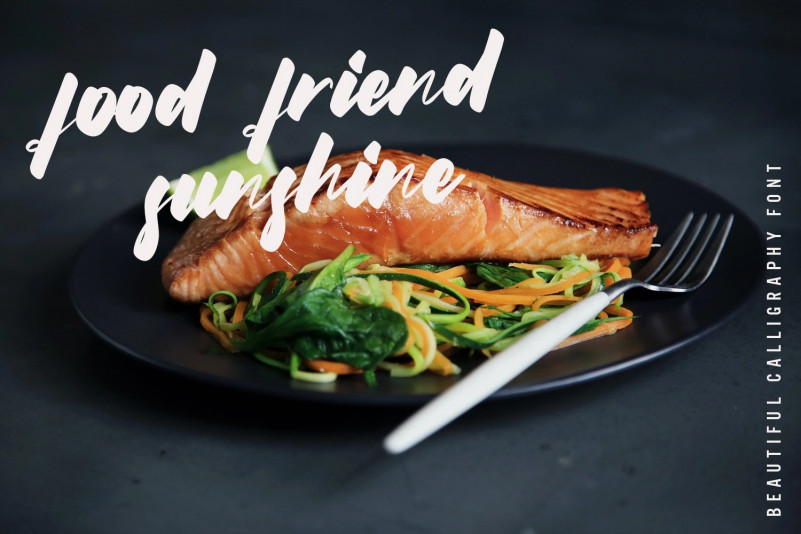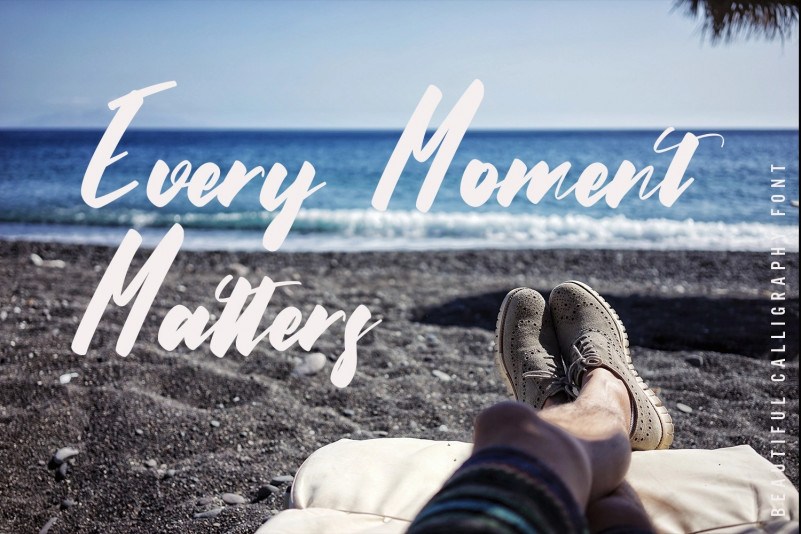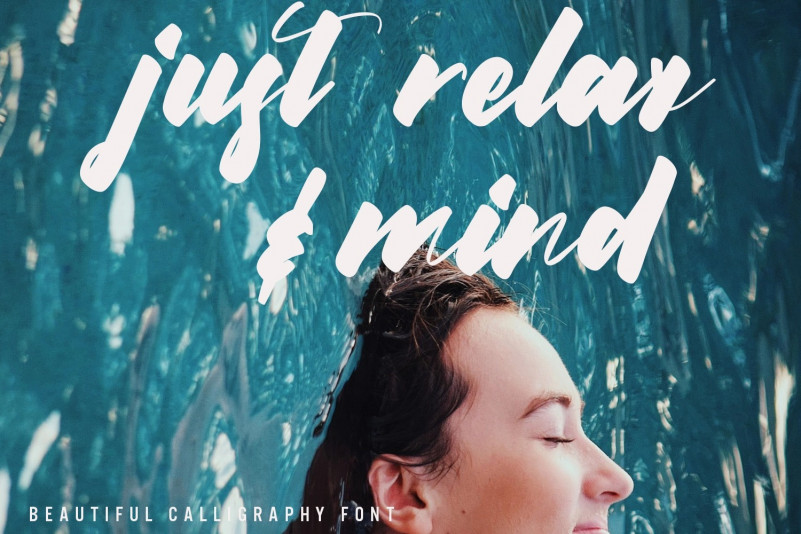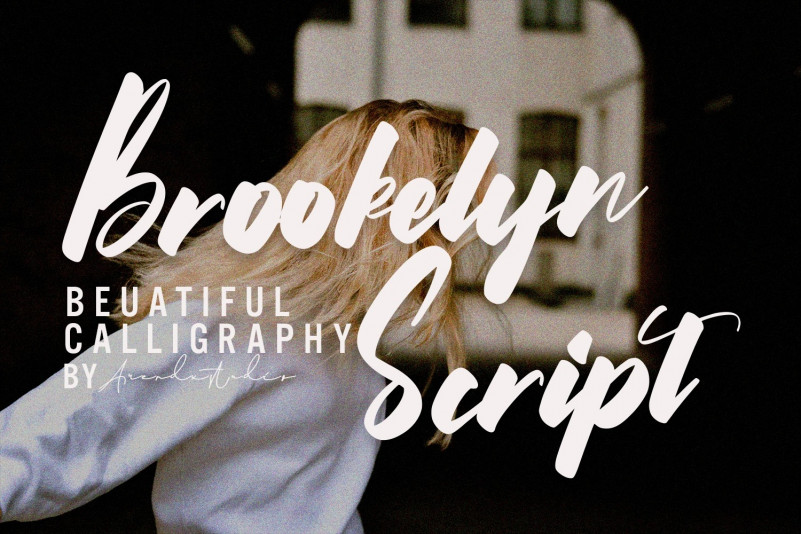
Brookelyn Brush Font
A handmade brush font. Inspired by brush ink stroke character, Brookelyn makes the messages you write have a more personal touch.
This handwritten brush font containing upper & lowercase characters, numerals, and punctuation. This brush font can be applied to any kind of purpose, from handwritten quotes, packaging merchandise, branding projects, etc.